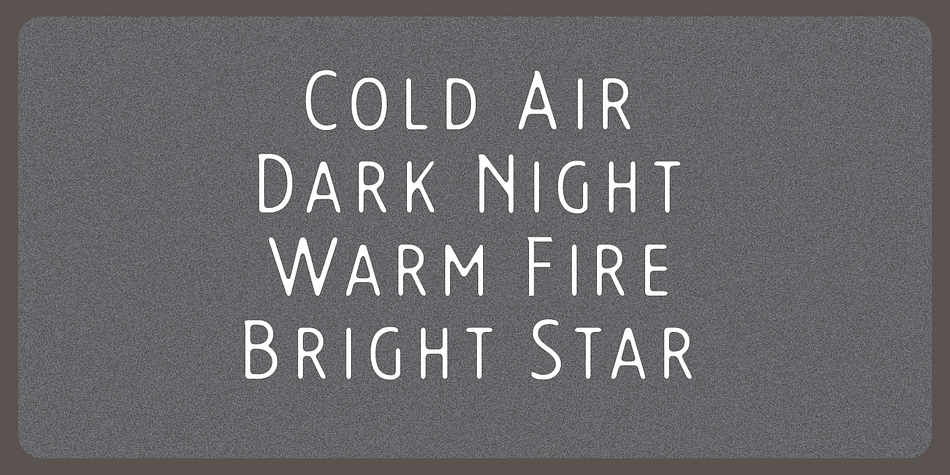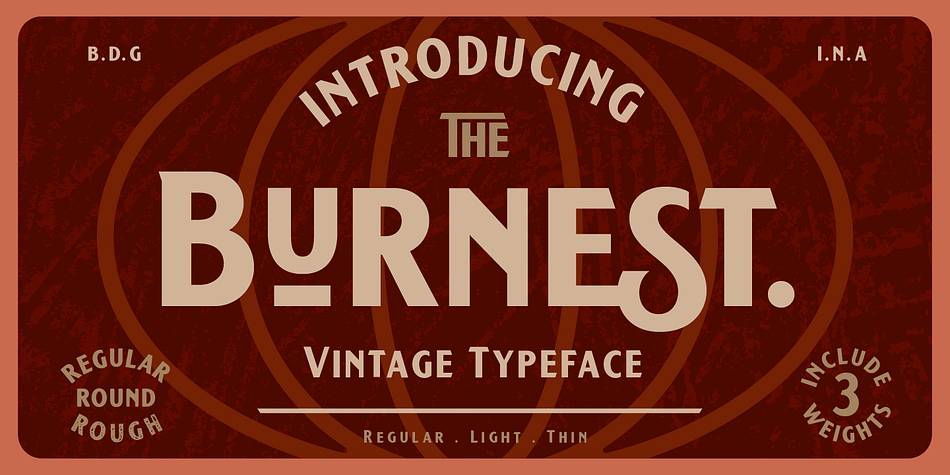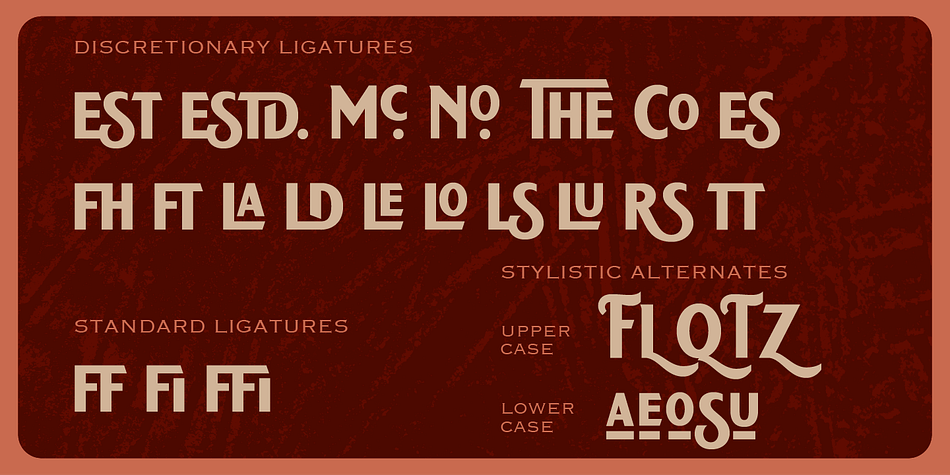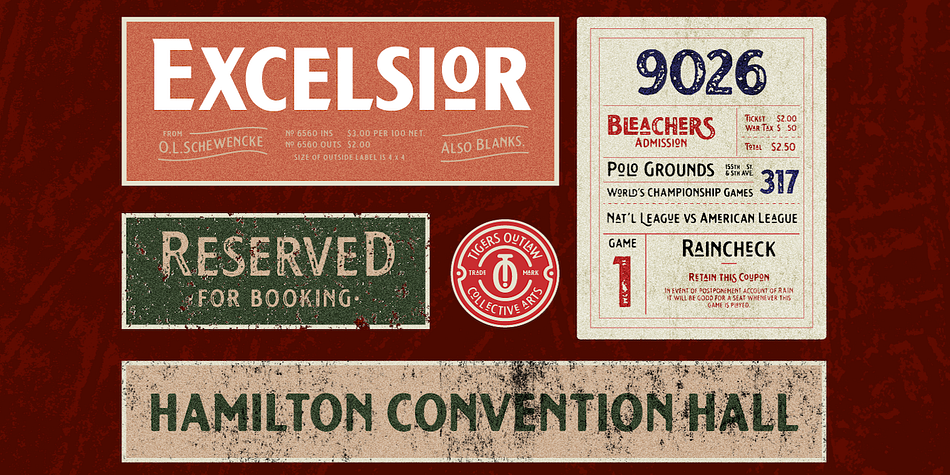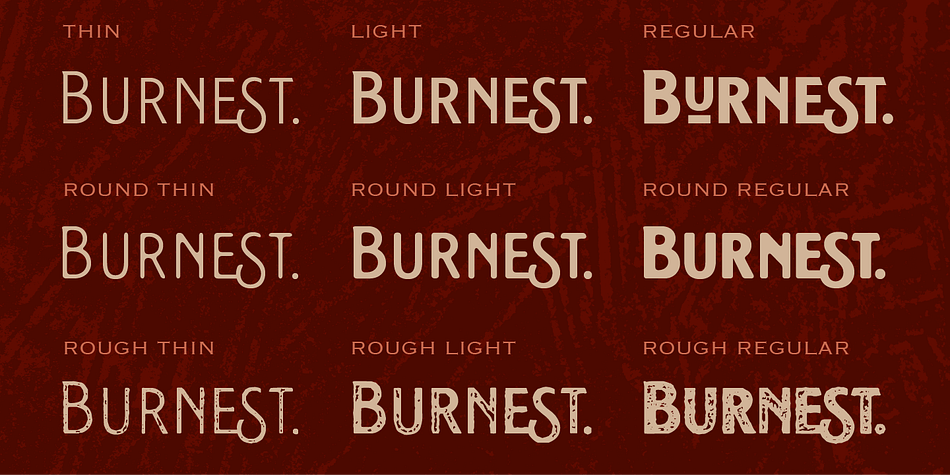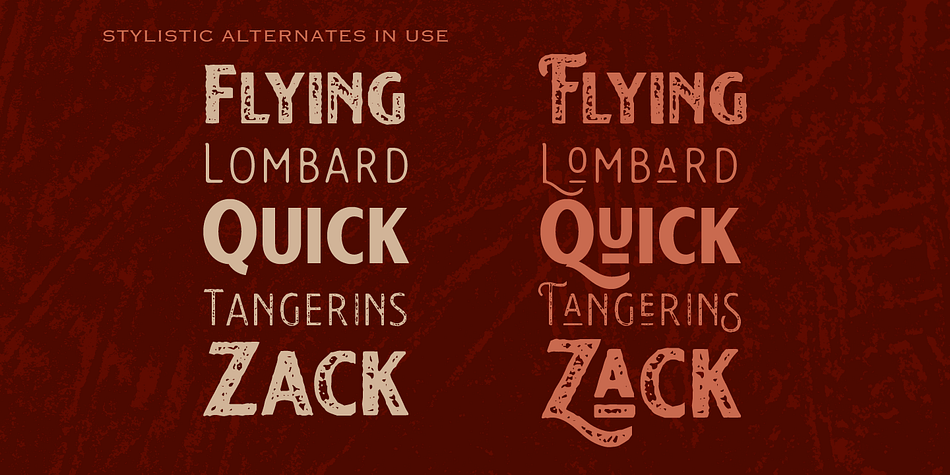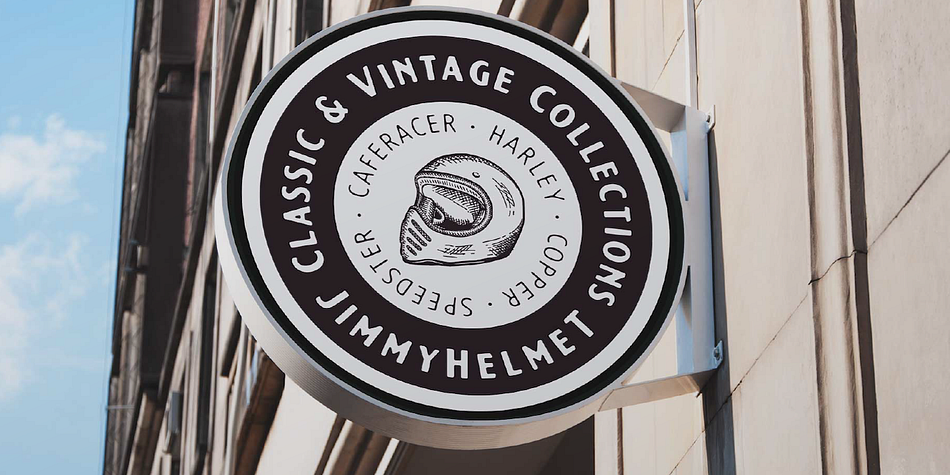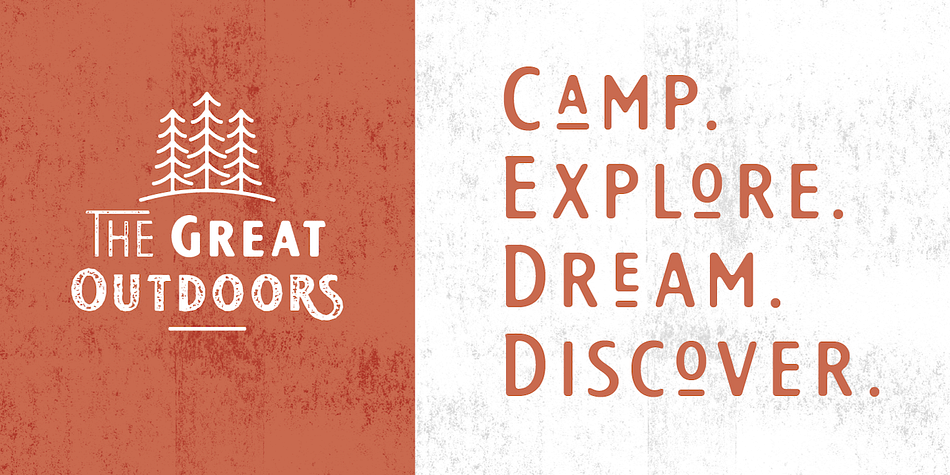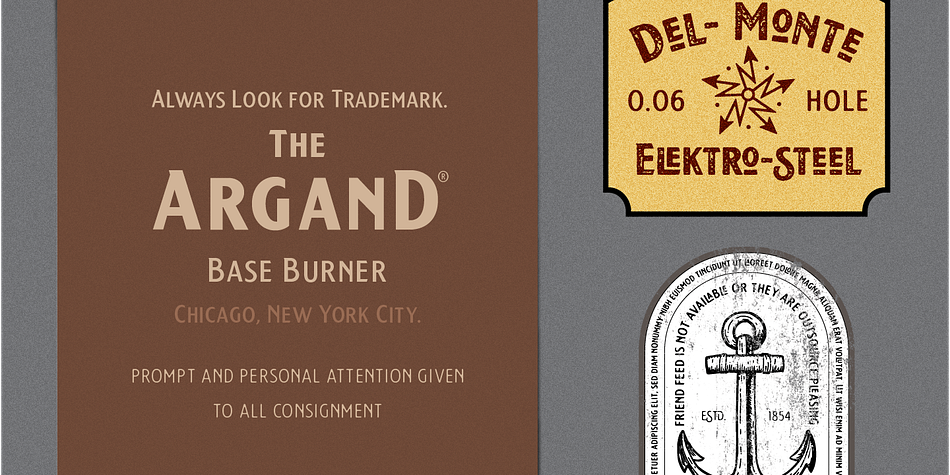
Burnest
Designed by Renov Olivian, Burnest is a display, grunge and western font family. This typeface has nine styles and was published by AF Studio.
In collaboration with Renov Olivian who was experienced with hand-drawn lettering for a project. We’ve decided to create Vintage Inspirated Fonts with strong identity for an outdoor design, camping, wild, journey, adventure, masculine, and etc.
Burnest Comes with 3 Weight, Thin, Light and Regular. On each Weight have 3 different style, Clean (sharp corner), Round (Rounded Corner), and Rough (Rough Version). 9 Fonts in Total for completing your design style.